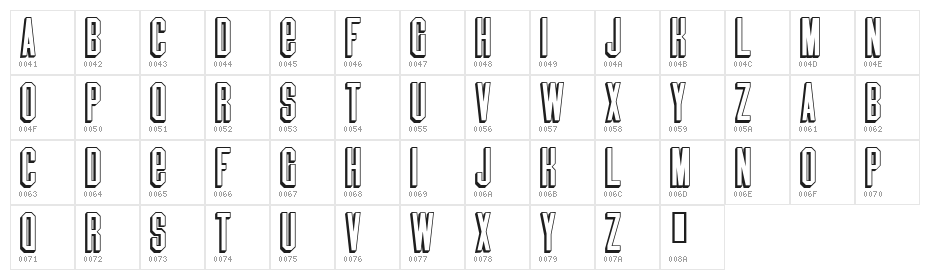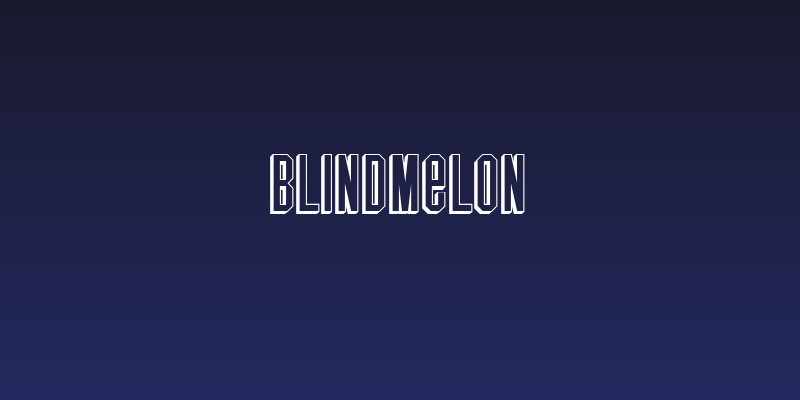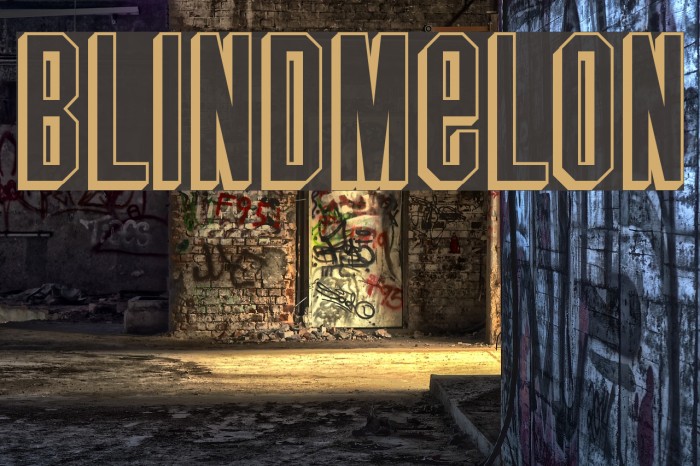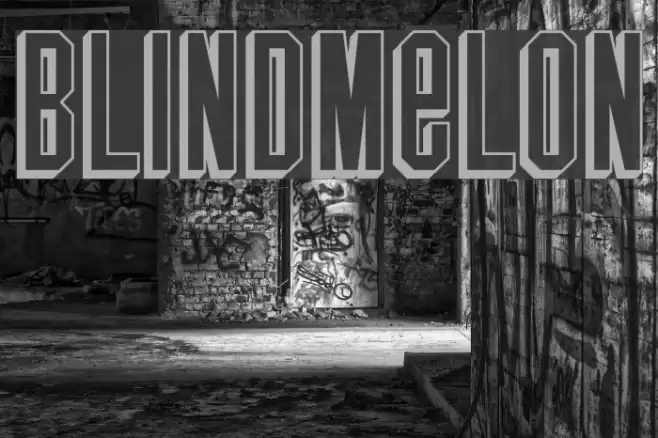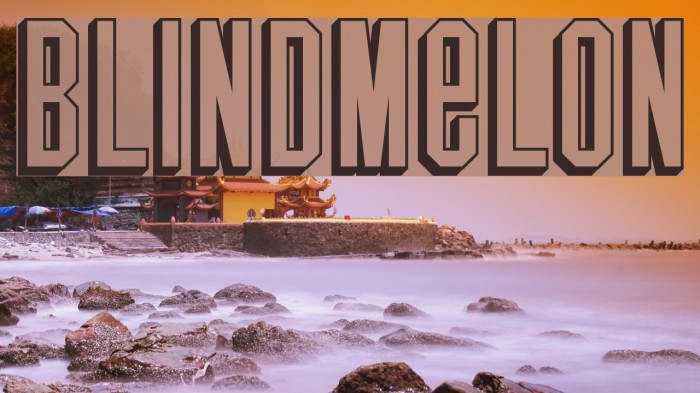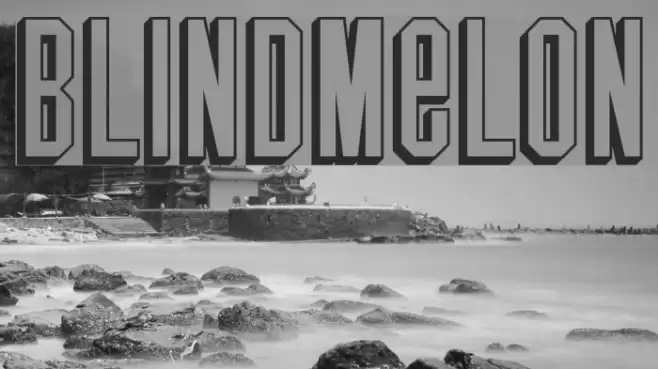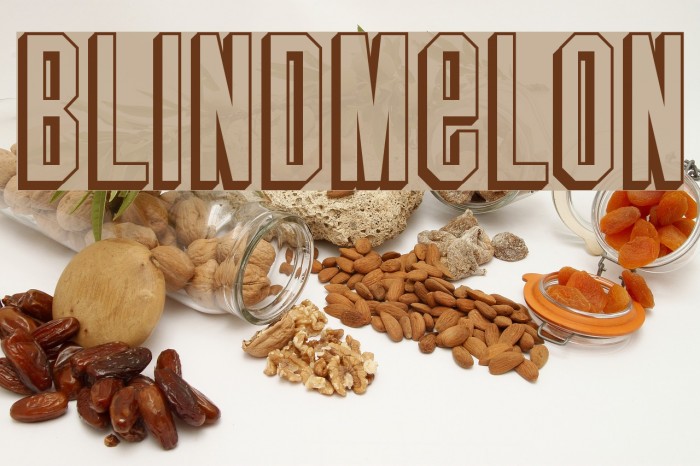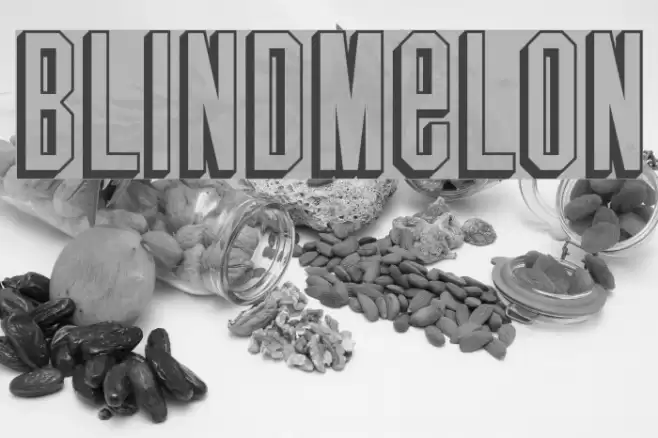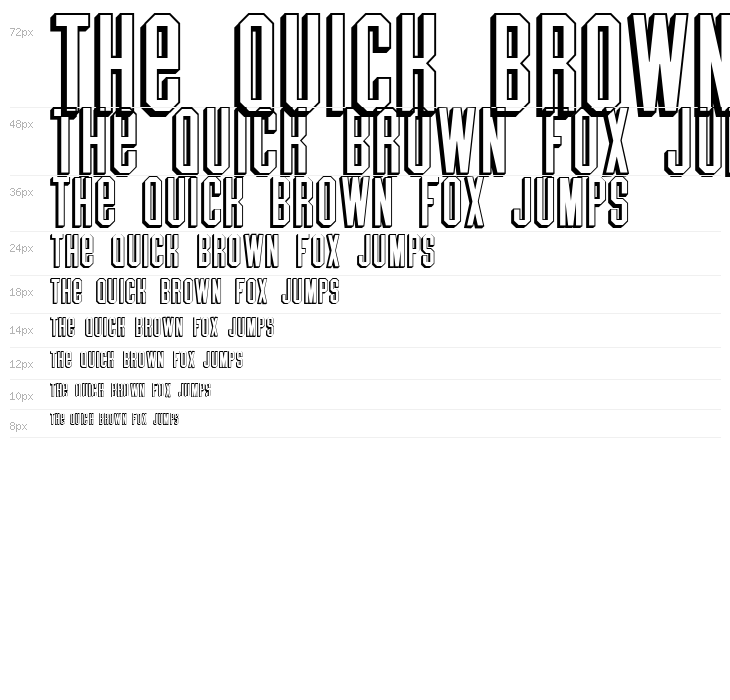
BlindMelon Font
✎ Outline
| Categorii | Outline |
| Caz de utilizare | Headlines |
| Proiecte propuse | This font is well-suited for projects that require a strong visual impact, such as posters, banners, and branding materials. Its bold style makes it ideal for headlines and titles in both print and digital media. |